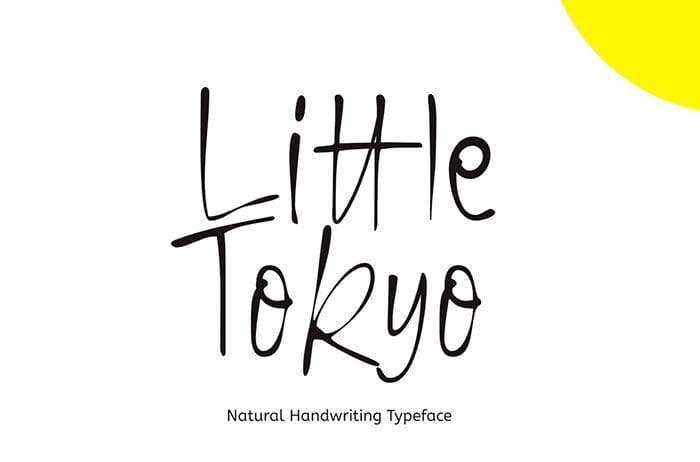
Little Tokyo Handwritten Font
Little Tokyo handwritten font is an authentic natural typeface. Suitable for various projects, such as logos and packaging. This font is available only for personal use. Created this font by Epiclinez. More free Fonts. Thanks!